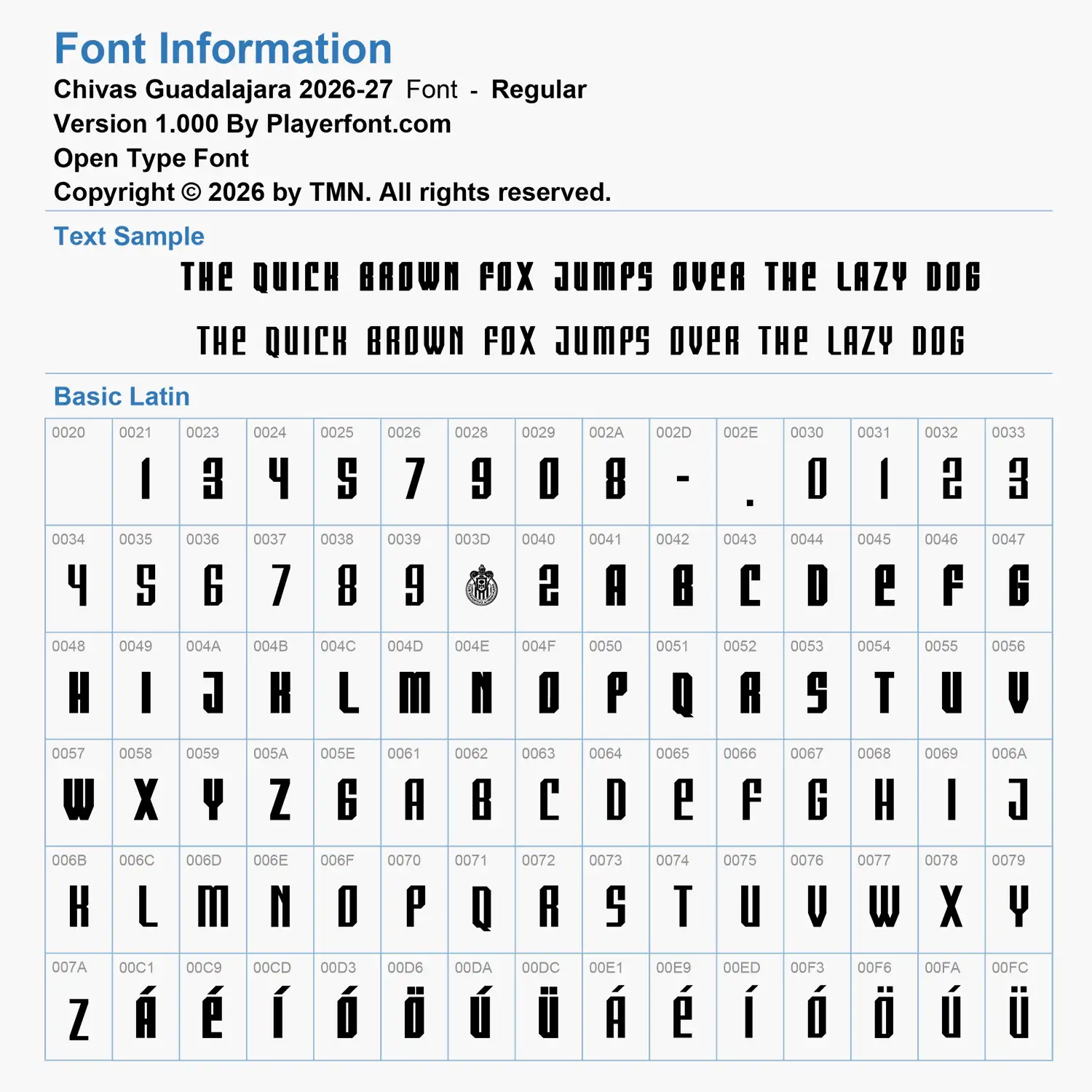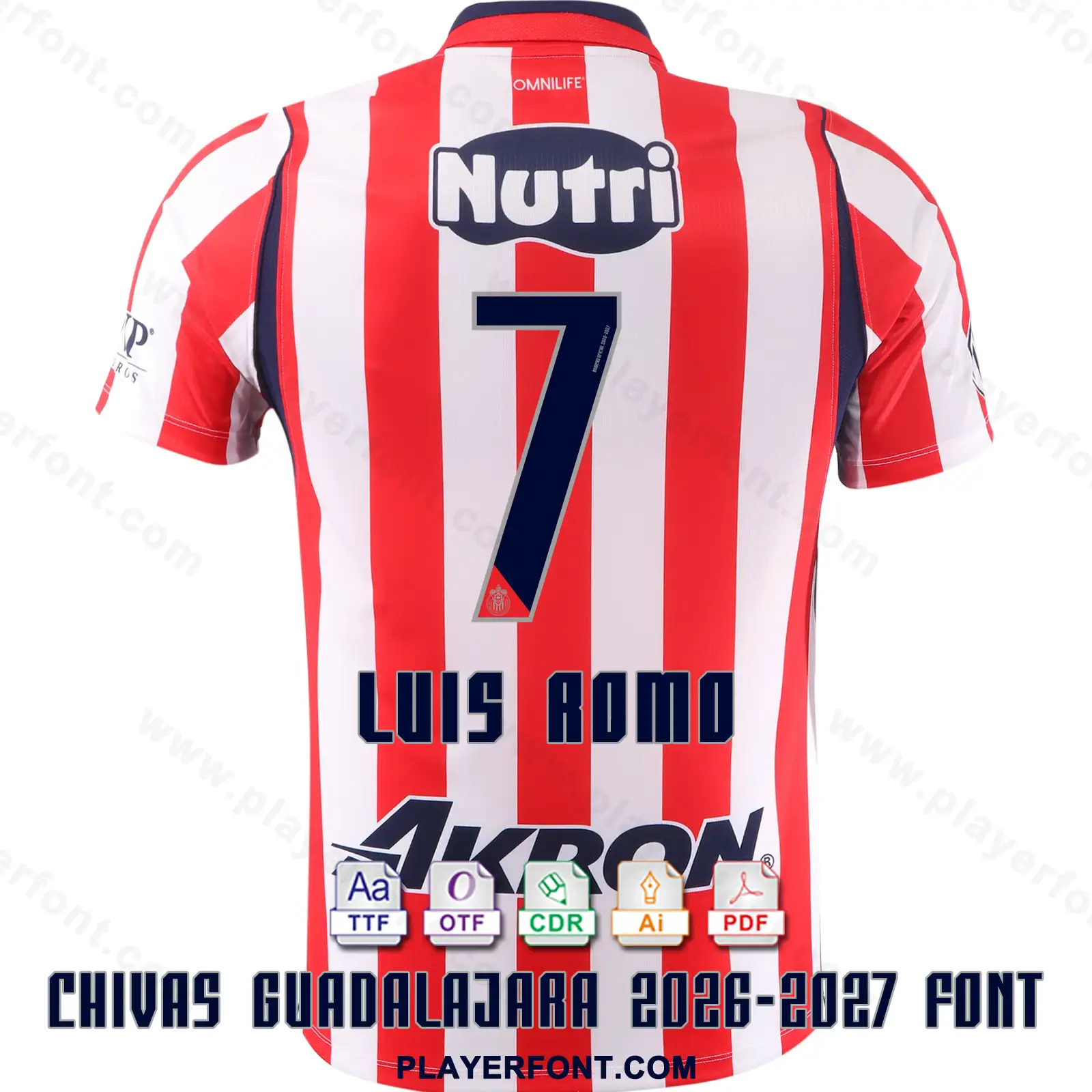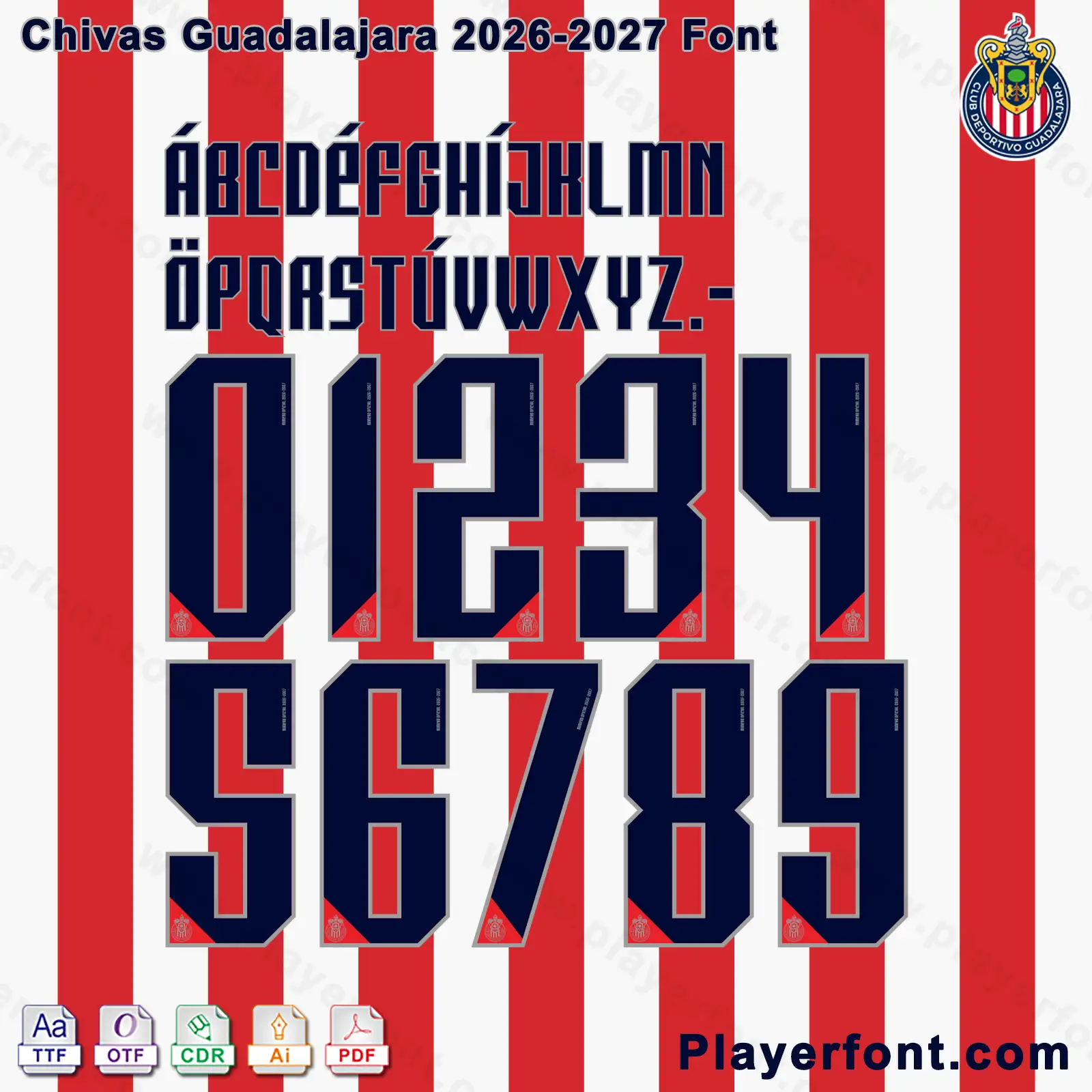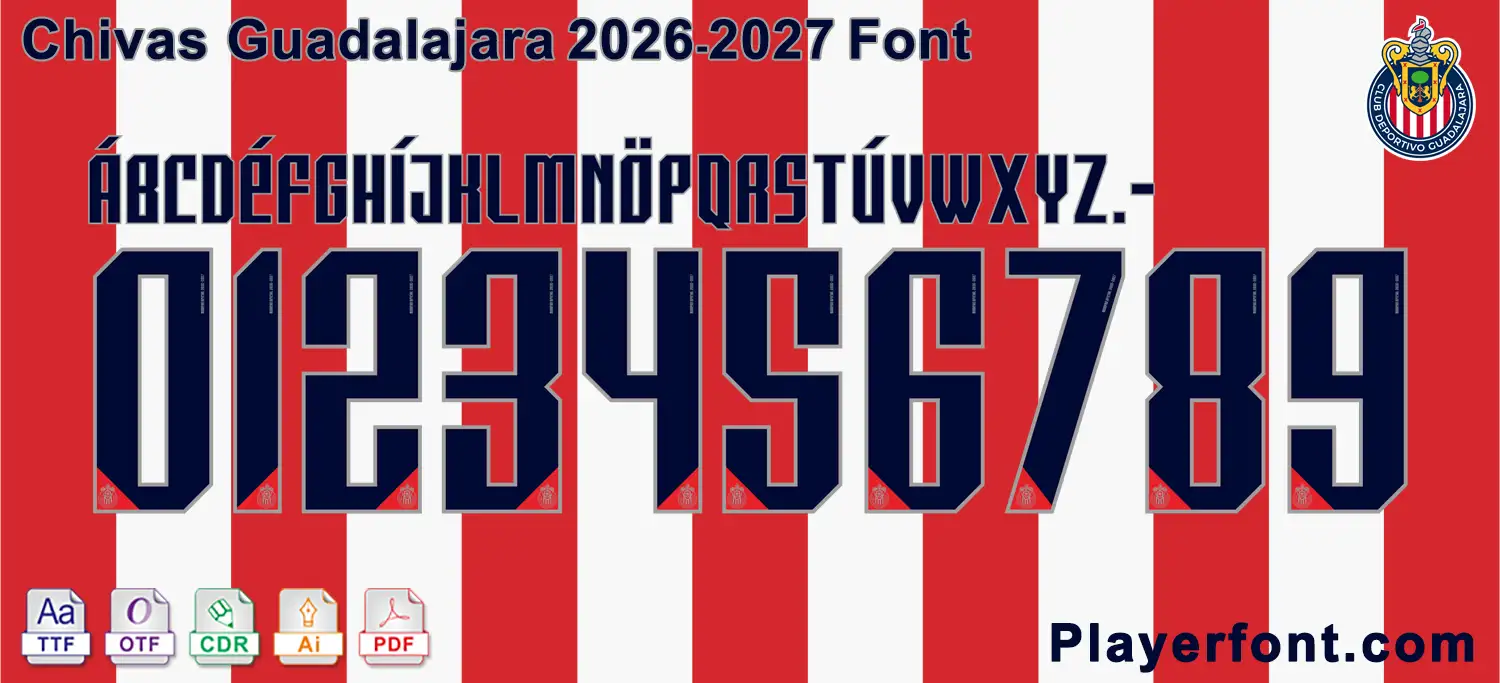
Download the premium Chivas Guadalajara 2026-2027 Font Kit today! This complete typography pack includes high-quality TTF, OTF, AI, CDR, and PDF vector files, fully compatible with vector design software and sports apparel printing. Features bold dark navy geometric uppercase lettering with grey outlines, inner red line accents, and the circular Chivas club crest embedded at the base of each digit. Perfect for kit designers, vinyl plotting, and Liga MX fans.
Horizontal vector template banner layout of Chivas Guadalajara 2026-2027 font alphabet and numbers string.
Horizontal Vector Preview Banner for the Chivas Guadalajara 2026-2027 Font
Elevate your sports jersey mockups, football custom graphics, and vector apparel printing projects with the high-quality Chivas Guadalajara 2026-2027 Font Download. Masterfully engineered by Playerfont.com, this high-performance typography set replicates the official-style numbers and distinct blocky serif lettering featured on the pitch for Rebaño Sagrado kits during the 2026-2027 Liga MX season.
Key Typography Features & Character List:
• Bold Blocky Geometric Lettering: Contains a unique condensed uppercase character set with angular inner cutouts, sharp corner styling, numbers (0-9), hyphens, and periods.
• Advanced International Accent Support: Includes an expansive set of diacritics spanning Basic Latin and Latin-1 Supplement (such as Á, É, Í, Ó, Ö, Ú, and Ü) ensuring flawless rendering for stars like Luis Romo and full club squad naming.
• Authentic Visual Details: The jersey numbers feature dark navy fill with crisp grey outer borders, inner red contrast stripes, angled base tabs, and the official circular Chivas Guadalajara crest centered at the bottom corner of each digit.
Design Feature Dark Navy Body with Grey Outer Border, Red Stripe Accent & Base Crest
Chivas Guadalajara 2026-2027 font jersey numbers and alphabet presentation layout with TTF OTF AI CDR PDF formats by Playerfont over red and white stripes.Chivas Guadalajara 2026-2027 Font Kit Download (TTF, OTF, AI, CDR, PDF Vector)